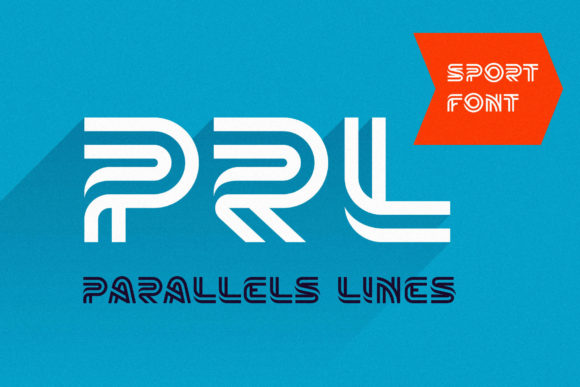
Behold Parallels Lines Font, a geometric masterpiece that will elevate your designs to new heights. With its striking lines and angles, this display font exudes a sense of modernity and sophistication. Picture your words leaping off the page, demanding attention with every stroke.
Unleash your creativity and explore the endless possibilities of Parallels Lines Font. Craft eye-catching posters that command attention from across the room. Design flyers that leave a lasting impression, ensuring your message is remembered long after the event. Create print materials that radiate professionalism and leave a lasting impression on your audience.
Parallels Lines Font is not just a font; it's an artistic tool that empowers you to communicate with impact. Its crisp, clean lines convey a sense of authority, making it the perfect choice for official letters, legal documents, and important announcements. Elevate your words, imbuing them with a sense of significance and gravitas.
But Parallels Lines Font is more than just a serious font. Its unique geometric style also lends a touch of playfulness and whimsy to your designs. Use it to create invitations, greeting cards, and social media graphics that are sure to delight and engage your audience. Let your words dance and play across the page, capturing hearts and imaginations.
With Parallels Lines Font, the possibilities are endless. Its versatility knows no bounds, making it the perfect font for a wide range of projects. Experiment with different colors, sizes, and layouts to discover the full extent of its creative potential. Unleash your inner artist and let Parallels Lines Font transform your designs into works of art.